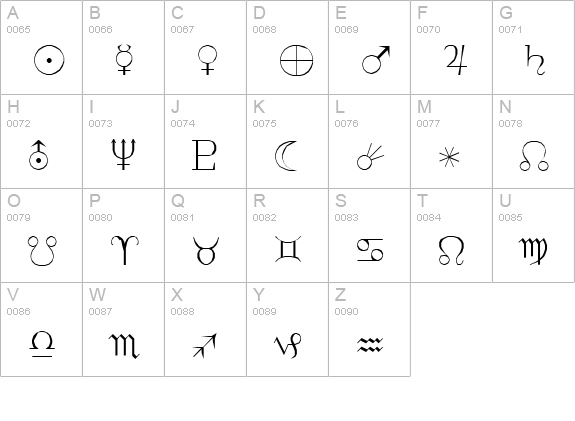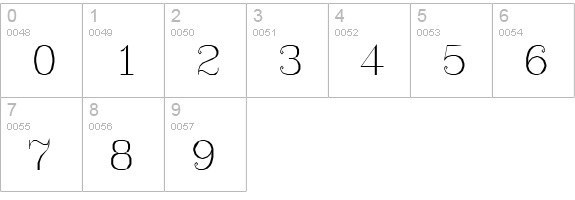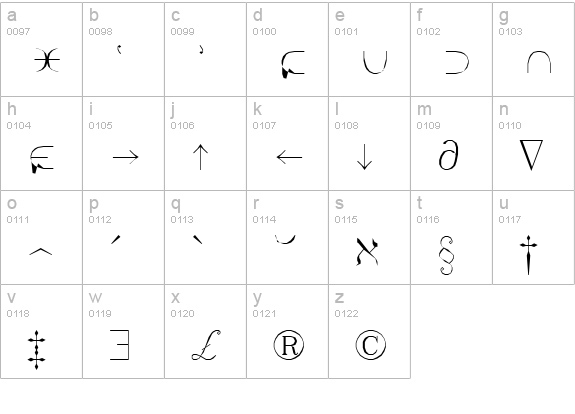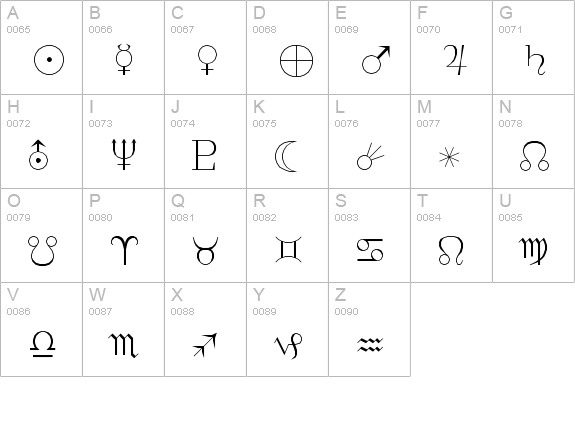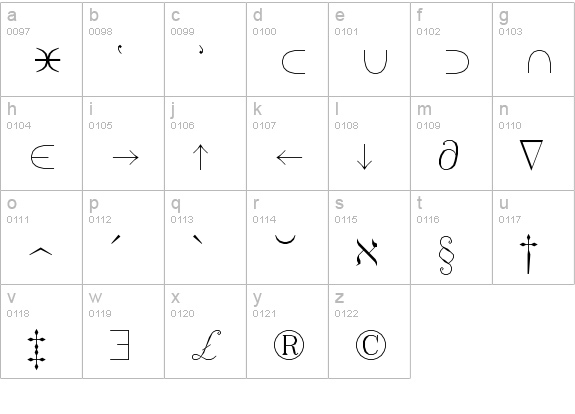
Syastro Font Details
Introducing Syastro font, a stunning display typeface that effortlessly combines elegance and modernity. With its sleek lines and unique letterforms, Syastro is perfect for a wide range of design projects, from branding and advertising to invitations and packaging. The intricate details of this font make it stand out, giving your designs a sophisticated and professional look. What's even better is that Syastro font is completely free to download at FontsMarket.com. Yes, you read that right - you can get your hands on this beautiful font without spending a dime. Don't miss out on this fantastic opportunity to elevate your designs with Syastro font. Download it now and let your creativity shine!